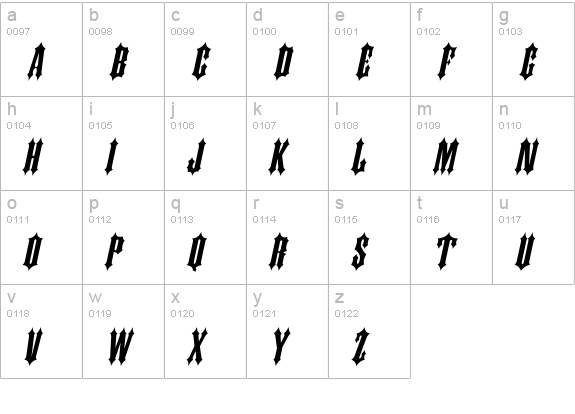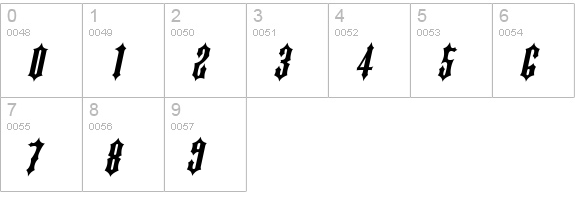
Ironwork Wide Italic Font Details
Ironwork Wide Italic is a distinctive, extended-width, italic variant in the Ironwork typeface family \xE2\x80\x94 well suited to design and typography projects.
Ironwork Wide Italic is a stunning and versatile font that combines elegance with a modern twist. Its unique italic design adds a touch of sophistication to any project, making it perfect for a wide range of applications. This typeface captures the essence of ironwork craftsmanship, showcasing intricate and intricate details that effortlessly blend with contemporary design trends. With its wide letterforms, Ironwork Wide Italic commands attention and makes a bold statement while maintaining a sense of grace. Whether you're designing a logo, creating eye-catching headlines, or simply enhancing the typography of your project, Ironwork Wide Italic is the ideal choice. Its flowing curves and refined strokes create a harmonious balance that elevates any text to new heights. One of the most remarkable aspects of this font is that it is freely available to download at FontsMarket.com. This means that you can easily access and use Ironwork Wide Italic for both personal and commercial purposes without any restrictions. Its availability as a free font allows you to add a touch of sophistication to your designs without breaking the bank. So, why settle for ordinary when you can have extraordinary? Elevate your typography game with Ironwork Wide Italic and let your creativity shine. Download this remarkable font today from FontsMarket.com and unleash the power of elegance in your designs.